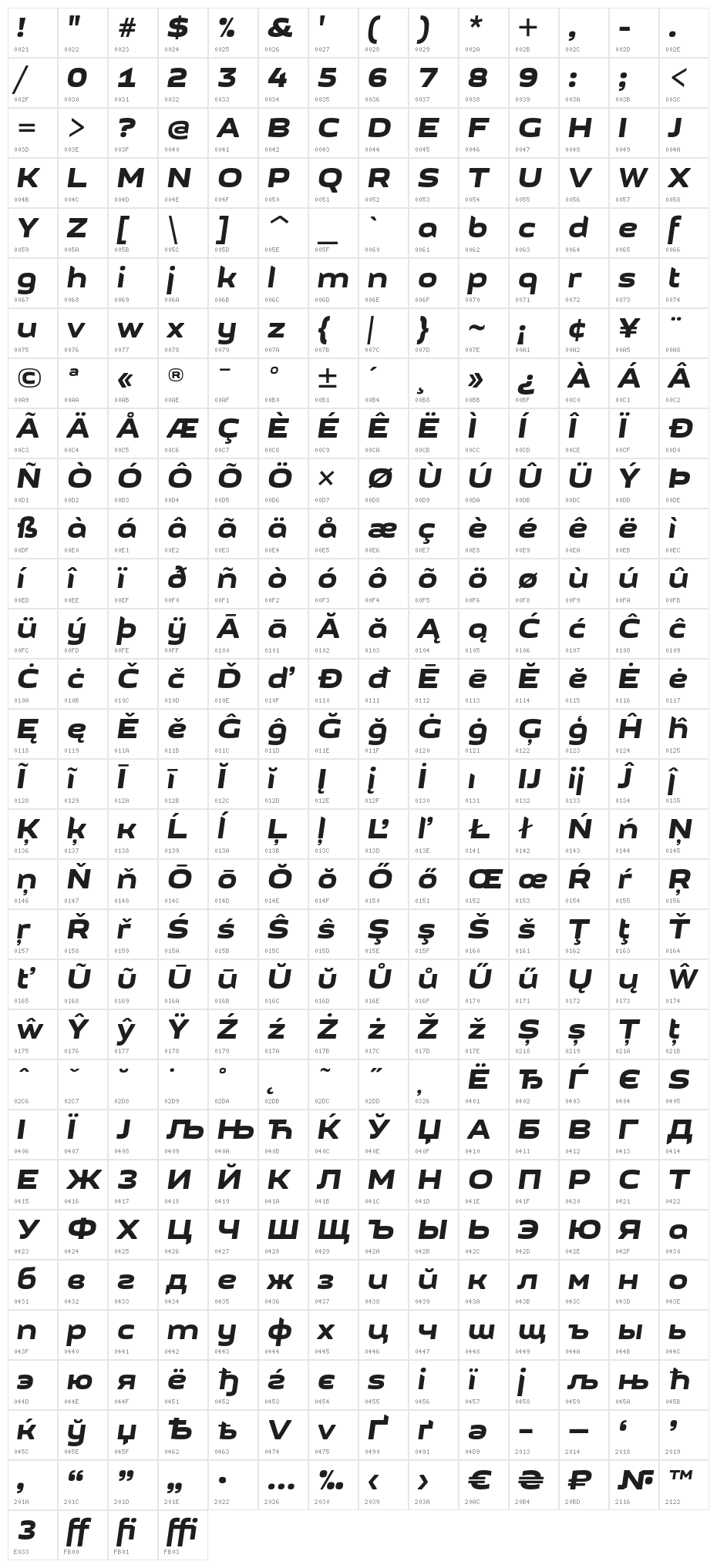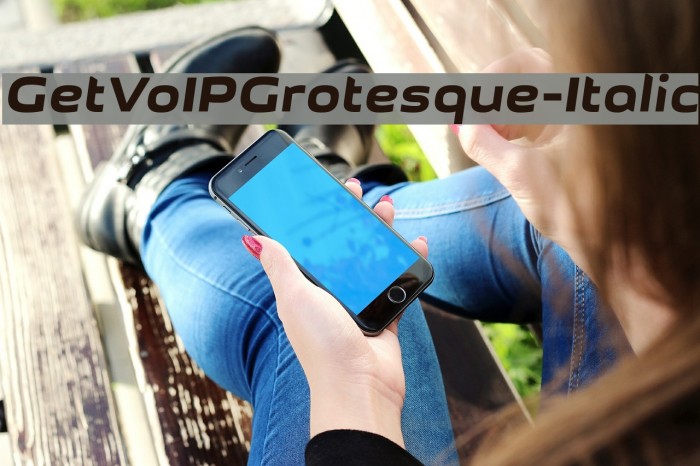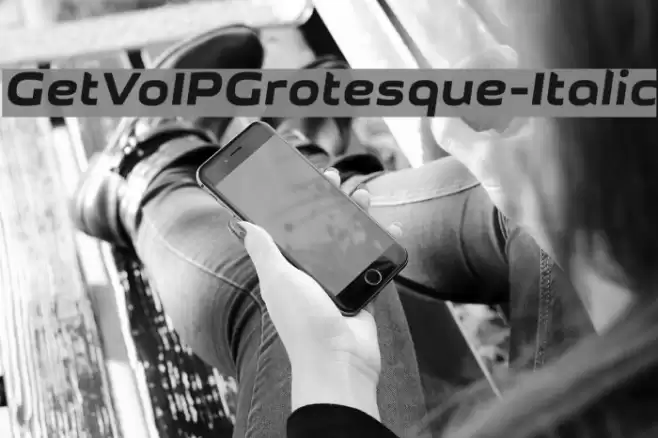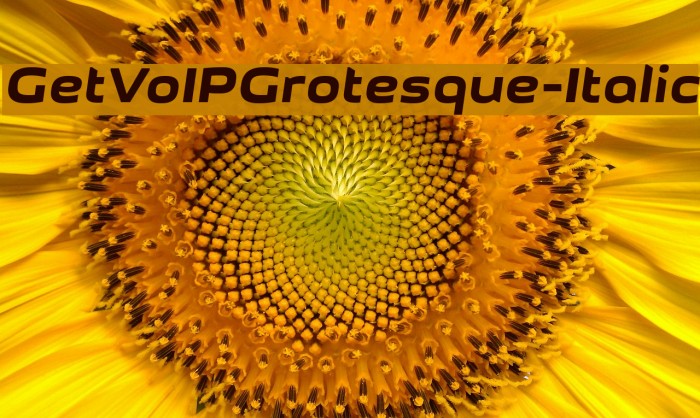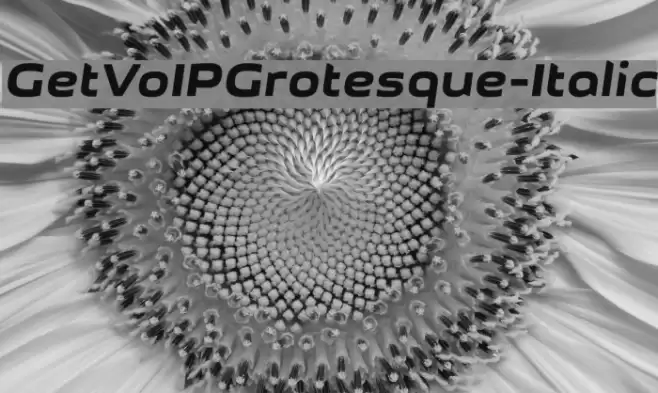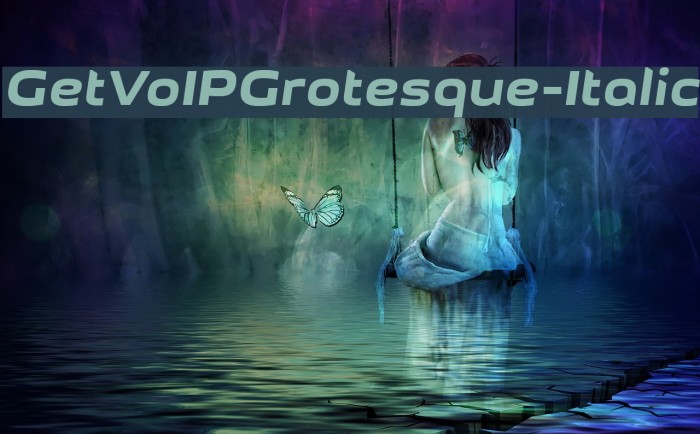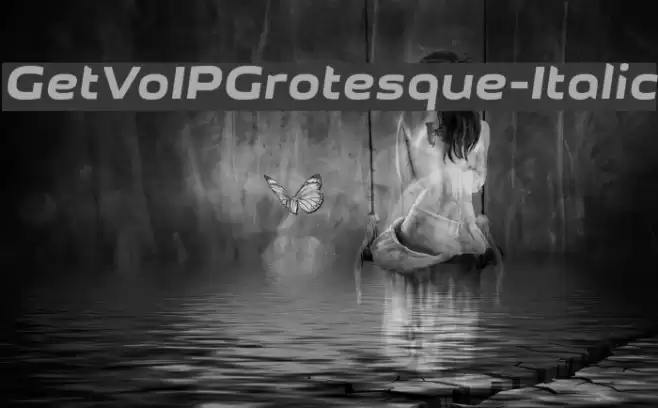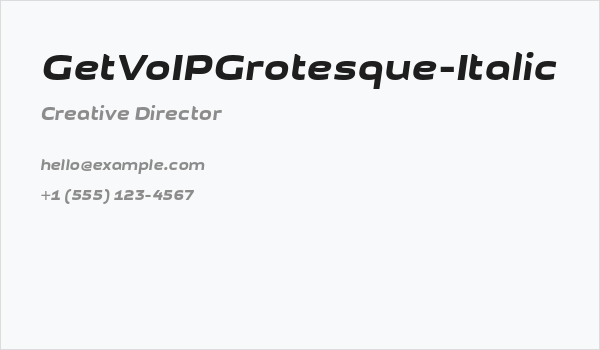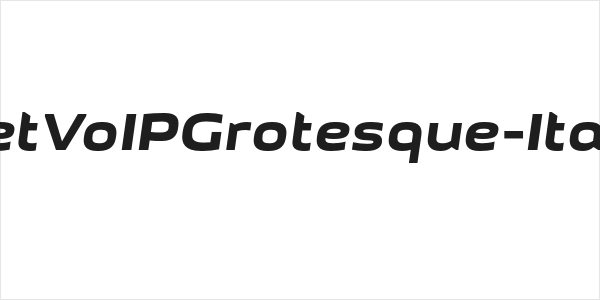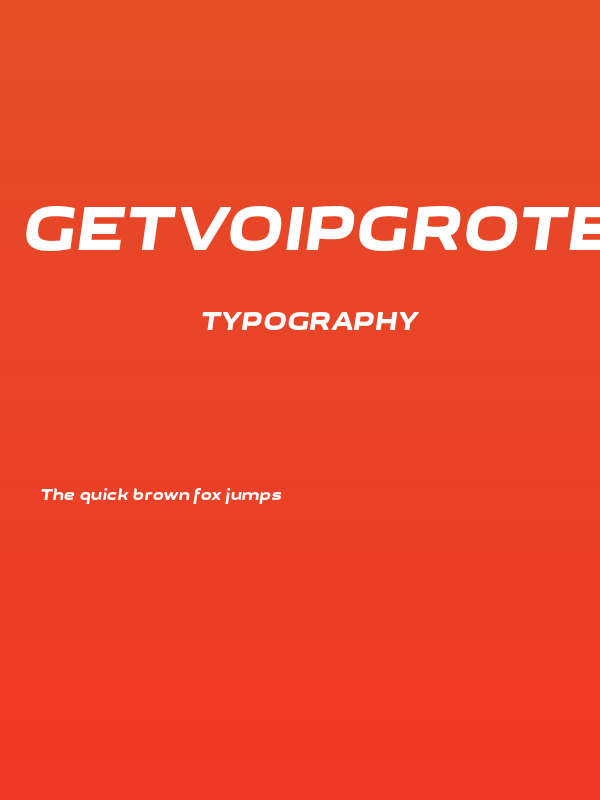
GetVoIPGrotesque-Italic Font
GetVoIPGrotesque-Italic Description
This font exhibits a modern and sleek design with a distinctly italicized style. The characters are slightly slanted, giving a dynamic and forward-moving appearance. The strokes are consistent and smooth, with a medium contrast that adds to its readability. The uppercase letters are bold and assertive, while the lowercase letters maintain a friendly and approachable look. The numerals are clear and well-defined, making them suitable for various applications. Special characters are crafted with precision, ensuring they blend seamlessly with the overall aesthetic.